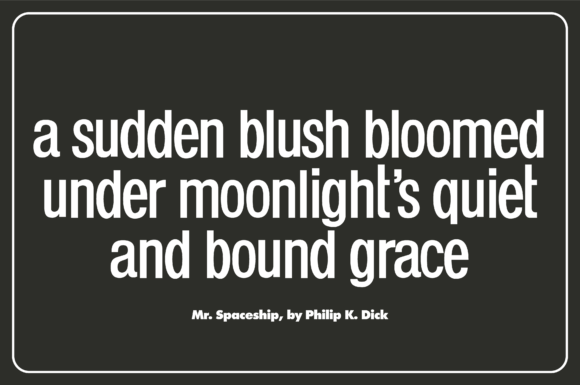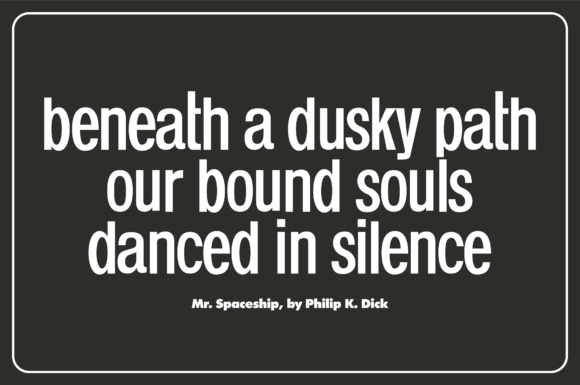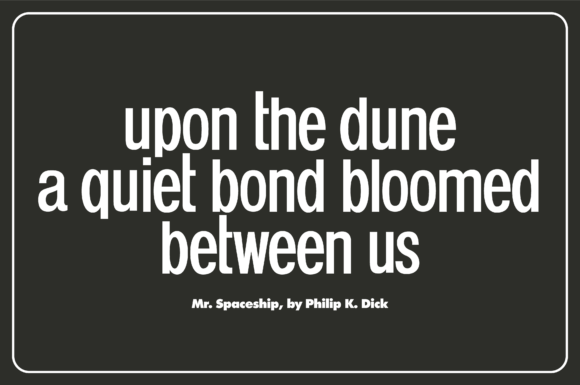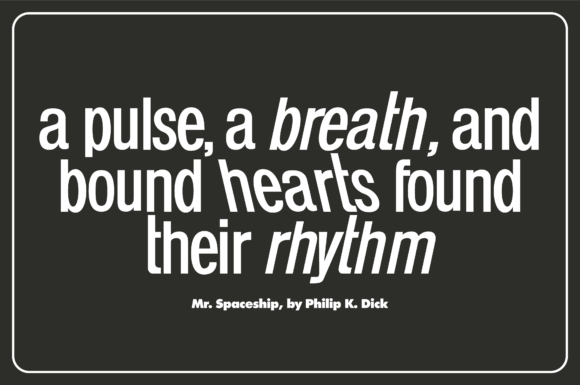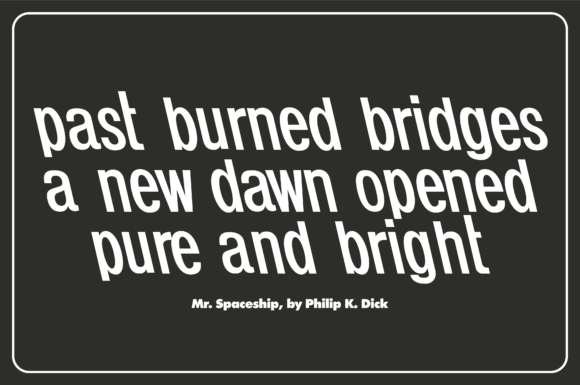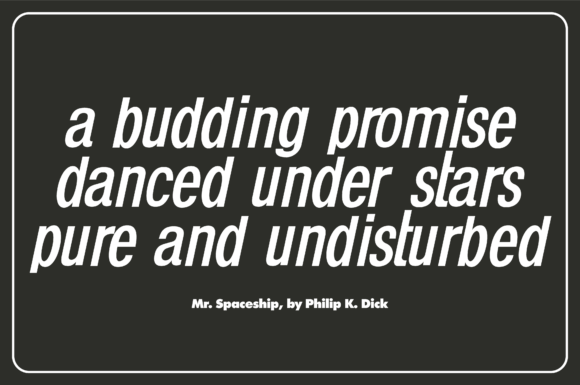
The Perfect Typography Partner: Unleashing the Power of Cubexa Font
Imagine you’re browsing through a design blog, and suddenly, a headline catches your eye. The words dance across the screen in perfect harmony, creating a visual feast that’s impossible to ignore. That’s the magic of typography at its finest. But what if you could tap into that same magic and elevate your designs to new heights?
Enter the Cubexa Font collection, a sleek and modern sans-serif font designed to transform your text into a visually stunning spectacle. With its Regular, Italic, and Reversed Italic styles, Cubexa Font is the perfect partner for designers seeking to create a lasting impression. Whether you’re crafting a website, magazine layout, or product packaging, Cubexa Font’s versatility and sophistication make it an invaluable asset for any creative project.
Cubexa Font Key Features
- Font Family: Cubexa Font is a unique sans-serif font family, designed for use in digital media, including web, mobile, and print applications.
- Character Set: Cubexa Font includes a comprehensive character set, covering Latin, Cyrillic, and Greek alphabets, as well as various symbols and punctuation marks.
- Unique Characteristics: Cubexa Font features a distinctive, modern design aesthetic, with clean lines, geometric shapes, and a highly legible x-height, making it ideal for use in digital and print media.
Cubexa Font Review
As a designer, I was excited to dive into the Cubexa Font and see what it had to offer. Overall, I was pleasantly surprised by its unique features and versatility.
- Unique letterforms: Cubexa Font boasts a distinctive, futuristic aesthetic that’s sure to turn heads.
- Excellent legibility: Despite its unconventional design, the font is surprisingly easy to read, even at smaller sizes.
- Highly customizable: With a wide range of weights, styles, and language support, you can tailor the font to suit your specific needs.
- Stylish italics: The font’s italic styles are particularly well-designed, adding an extra layer of sophistication to your typography.
- Limited support for certain languages: While Cubexa Font supports many languages, it’s not a comprehensive solution for all languages and scripts.
- Not ideal for body text: While the font is great for headings and titles, it may not be the best choice for large blocks of body text due to its unconventional design.
Cubexa Font is a bold, eye-catching font that’s perfect for making a statement. Its unique design and high level of customization make it a great choice for designers looking to add some flair to their typography. However, its limitations in language support and suitability for body text may make it less appealing to those with more traditional design needs.
Cubexa Font is ideal for:
1. Modern and minimalist designs.
2. Creating a clean and professional look.
3. Adding a touch of sophistication to your branding.